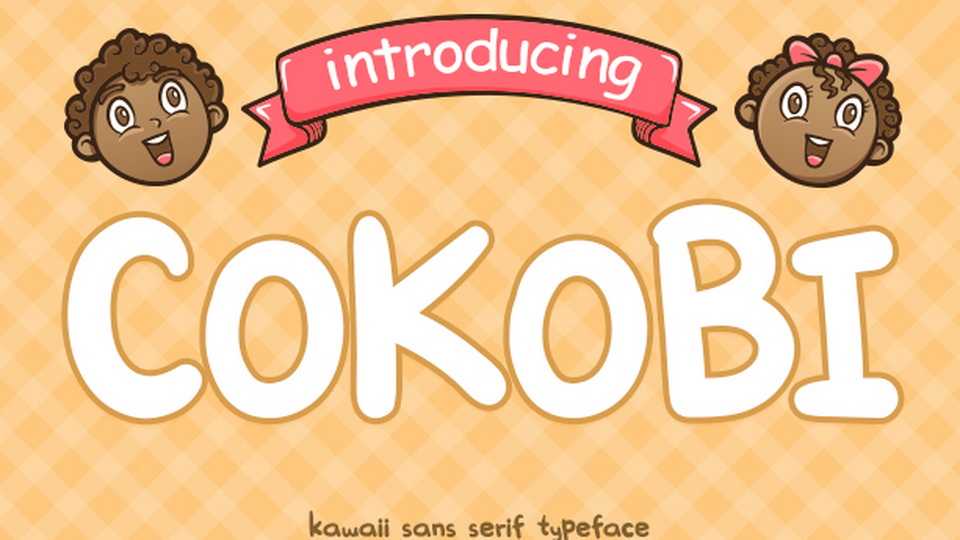
Download Cokobi font, a cute and friendly handwritten font. Add this chunky lettered Cokobi font to your designs and notice how it makes them come alive.
Designer: Ginan Perdana